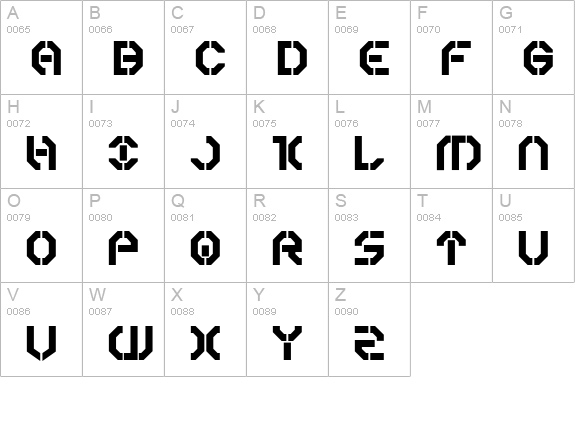
Year 3000 Bold is a strong, high-contrast variant in the Year typeface family \xE2\x80\x94 well suited to headlines, attention-grabbing titles, and strong calls-to-action.
Year 3000 Bold font is a futuristic and eye-catching typeface that is sure to make your designs stand out. With its sleek, modern design and bold lettering, this font is perfect for creating attention-grabbing headlines, logos, and posters. The Year 3000 Bold font is available for free download at FontsMarket.com, making it easily accessible for all your design needs. Whether you're working on a project for print or digital media, this versatile font is sure to make a bold statement. Download Year 3000 Bold font today and take your designs to the next level!